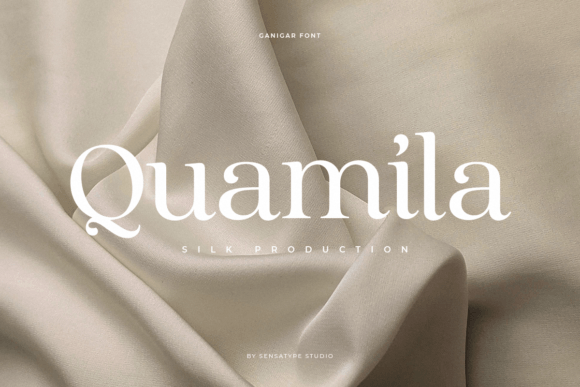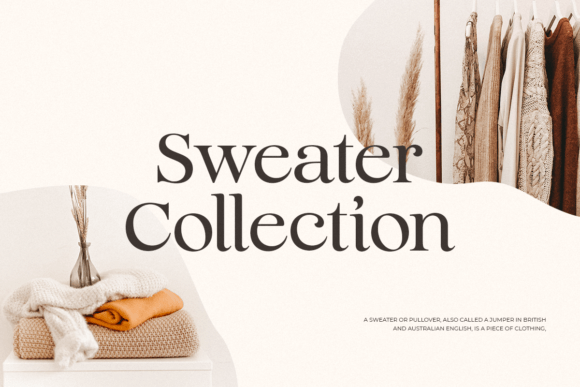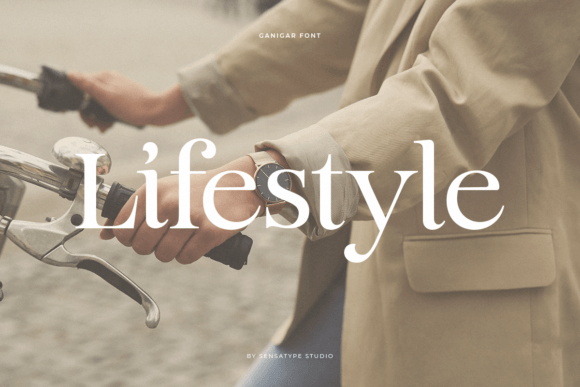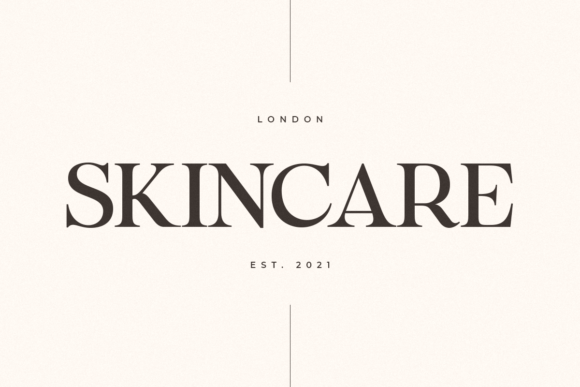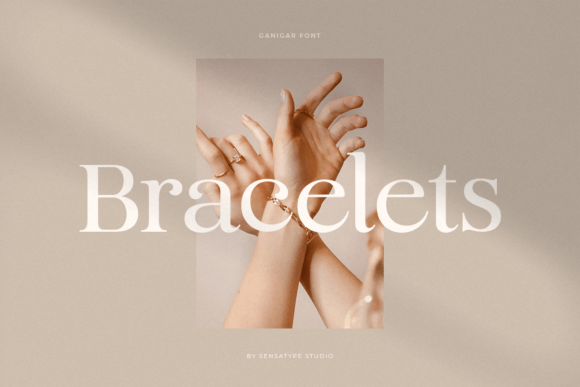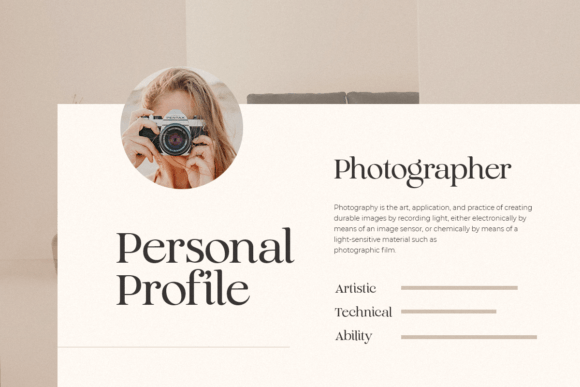
Introducing Ganigar Font: Elevate Your Designs with Elegance and Boldness
Are you on the hunt for a font that exudes elegance, sophistication, and versatility? Look no further than Ganigar Font! This stunning serif font is making waves in the design community, and for good reason. With its unique blend of refinement and boldness, Ganigar is the perfect choice for designers and crafters looking to elevate their projects.
What is Ganigar Font?
Ganigar Font is a beautifully crafted serif font that boasts an incredibly versatile style. Its elegant and bold design makes it suitable for a wide range of applications, from wedding invitations and stationary art to social media posts and more. Whether you’re a seasoned designer or a crafty DIY enthusiast, Ganigar Font is sure to impress.
Key Features of Ganigar Font
- Elegant and Bold Design: Ganigar Font features a unique blend of elegance and boldness, making it perfect for designs that require a touch of sophistication.
- Versatile Style: With its versatile style, Ganigar Font can be used for a wide range of projects, from wedding invitations and stationary art to social media posts and more.
- Serif Font: As a serif font, Ganigar features small lines or flourishes at the ends of its letters, giving it a classic and refined look.
Uses for Ganigar Font
So, what can you create with Ganigar Font? The possibilities are endless! Here are a few ideas to get you started:
- Wedding Invitations: Create stunning wedding invitations that set the tone for a beautiful and elegant celebration.
- Stationary Art: Design gorgeous stationary art, including greeting cards, thank you cards, and more.
- Social Media Posts: Elevate your social media posts with Ganigar Font’s bold and elegant design.
- Branding and Packaging: Use Ganigar Font to create a cohesive brand identity that exudes sophistication and refinement.
Why Choose Ganigar Font?
With so many fonts on the market, why choose Ganigar Font? Here are just a few reasons why designers and crafters are falling in love with this stunning serif font:
- Unique Design: Ganigar Font features a unique and distinctive design that sets it apart from other fonts.
- High-Quality: With its high-quality design and craftsmanship, Ganigar Font is perfect for professional designers and crafters.
Tips for Using Ganigar Font
To get the most out of Ganigar Font, here are a few tips to keep in mind:
- Experiment with Sizes: Try using Ganigar Font in different sizes to create visual interest and hierarchy.
- Pair with Other Fonts: Pair Ganigar Font with other fonts to create a unique and eye-catching design.
- Use for Headings and Titles: Use Ganigar Font for headings and titles to add a touch of elegance and sophistication.
In conclusion, Ganigar Font is a stunning serif font that is sure to elevate your designs. With its elegant and bold design, versatile style, and high-quality craftsmanship, Ganigar Font is perfect for designers and crafters looking to create beautiful and sophisticated projects. Whether you’re creating wedding invitations, stationary art, social media posts, or more, Ganigar Font is the perfect choice.